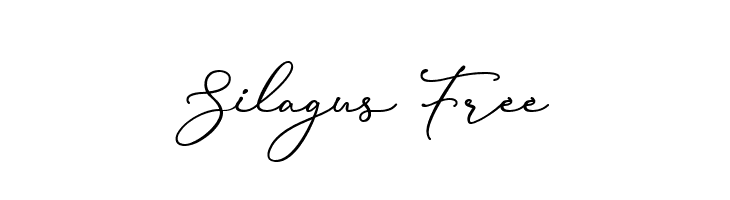
An elegant, cursive script font with fluid, connected strokes.
A fluid and elegant script font with a handwritten style.
An elegant, flowing script font with thin, delicate strokes and graceful curves.
An elegant script font with intricate, flowing letterforms and decorative swashes.
A flowing, cursive font with elegant, handwritten style.